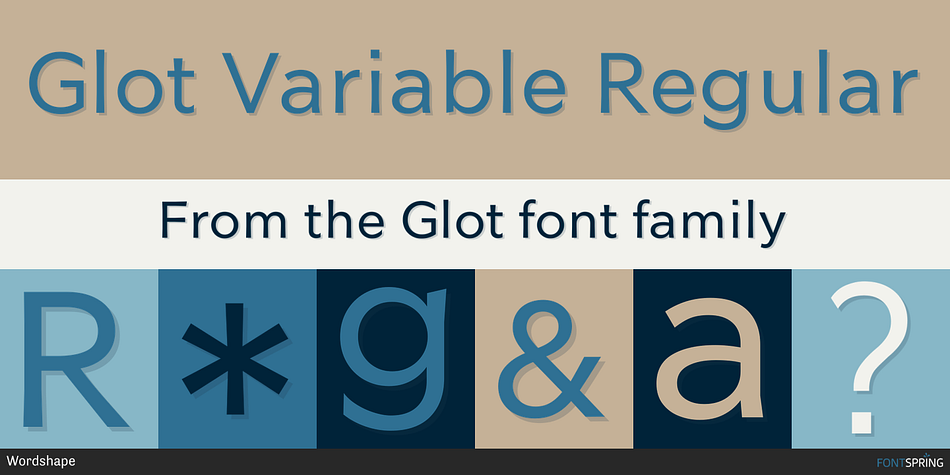
Glot Variable Regular
Designed by Ian Lynam, Glot is a sans serif font family. This typeface has twelve styles and was published by Wordshape.
Designed by Ian Lynam, Glot is a sans serif font family. This typeface has ten styles and was published by Wordshape.
Glot is a ten-member flared terminal sans serif family of typefaces based on a mix of proportions of Roman square capitals and hyper-readable sans serifs. Glot comes in five weights with matching true italics: Light, Regular, Medium, Bold and Black. Glot is also available as a set of two variable fonts (Glot Variable and Glot Variable Italic) that include the full range of weights in Glot. The Glot family has a wide range and is incredibly functional, working well for longer texts as well as display typography.
After designing the house typefaces for a handful of the most predominant multiplayer online games out there, we decided that it was time to bring the battlefield to the people. Glot comes armed with ample language support (Central, Eastern, and Western European) and OpenType ornamental spiked alternate characters for when one needs a hint of danger.